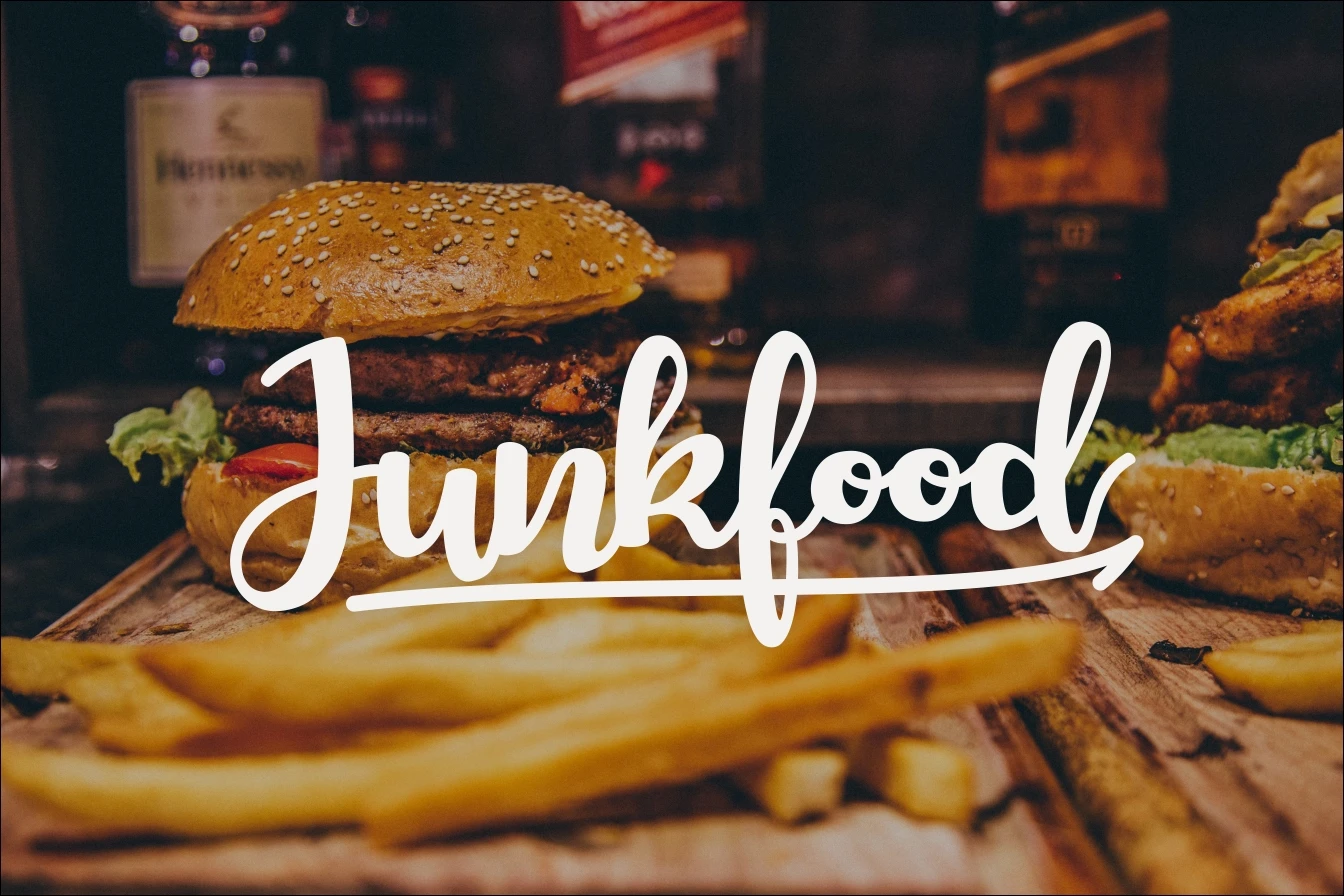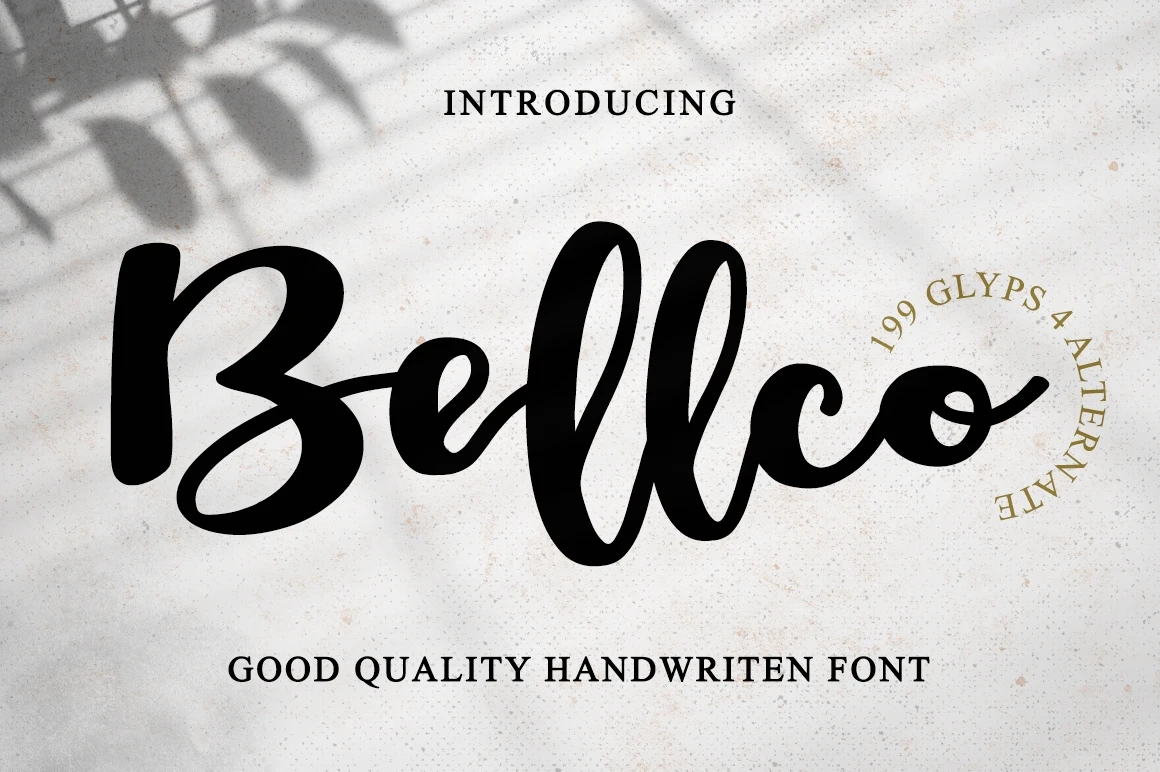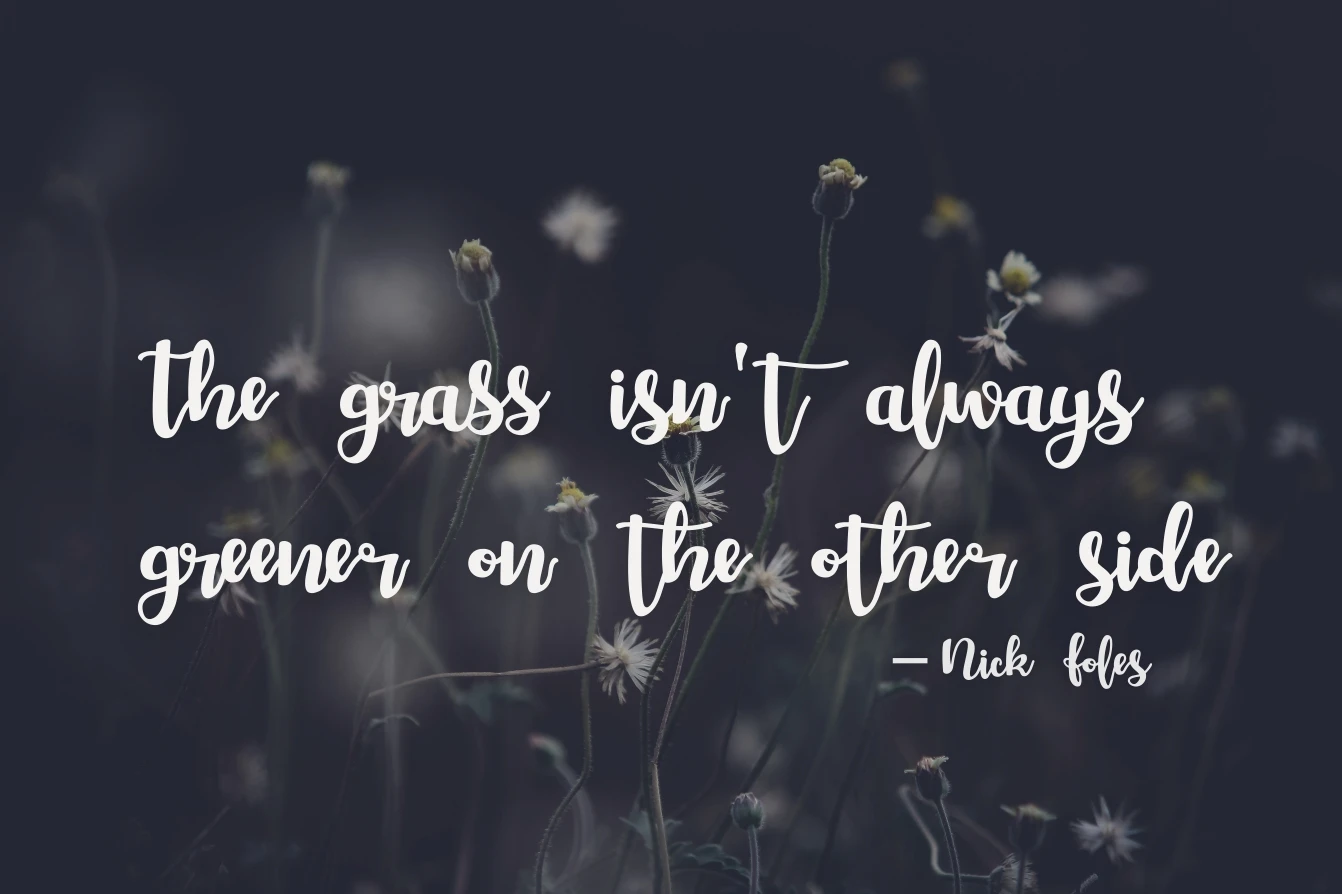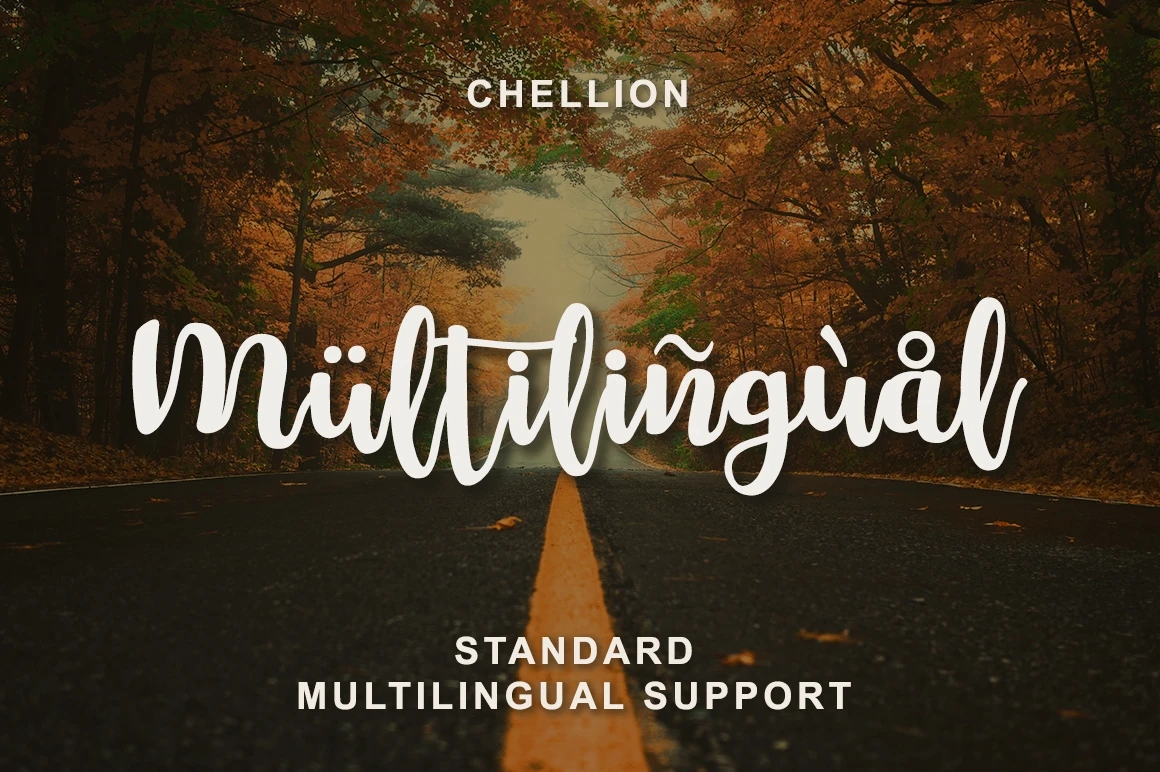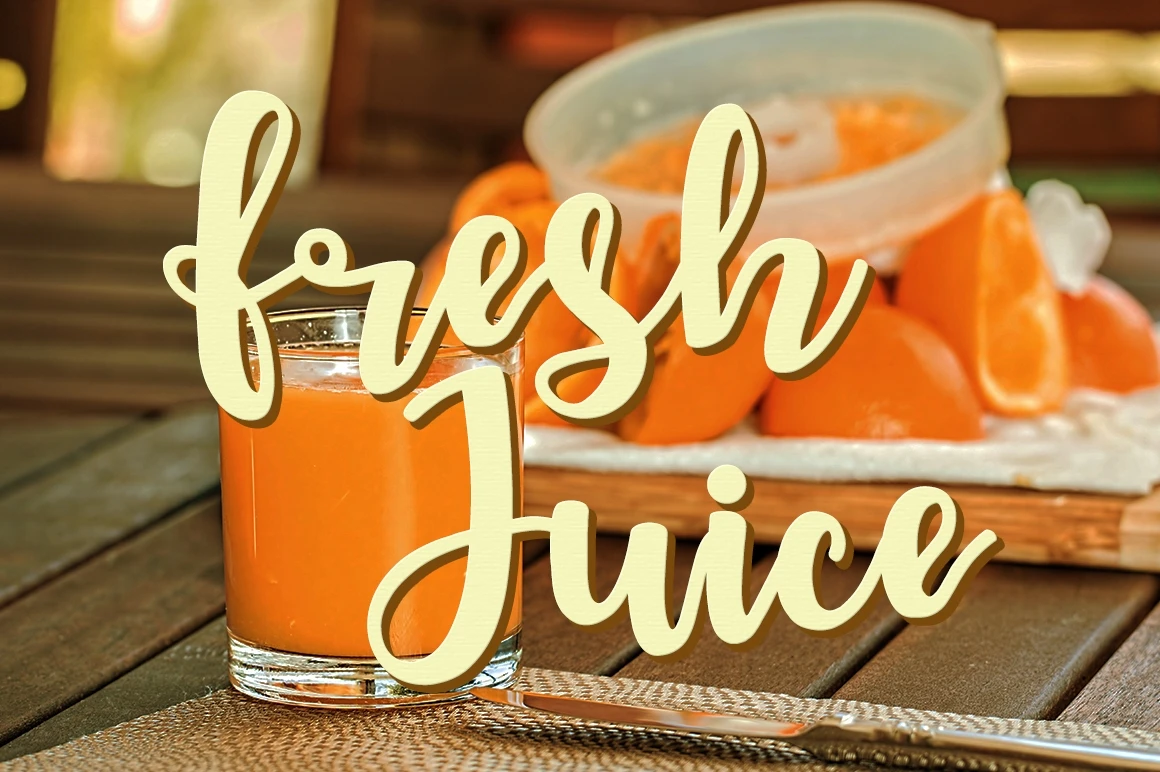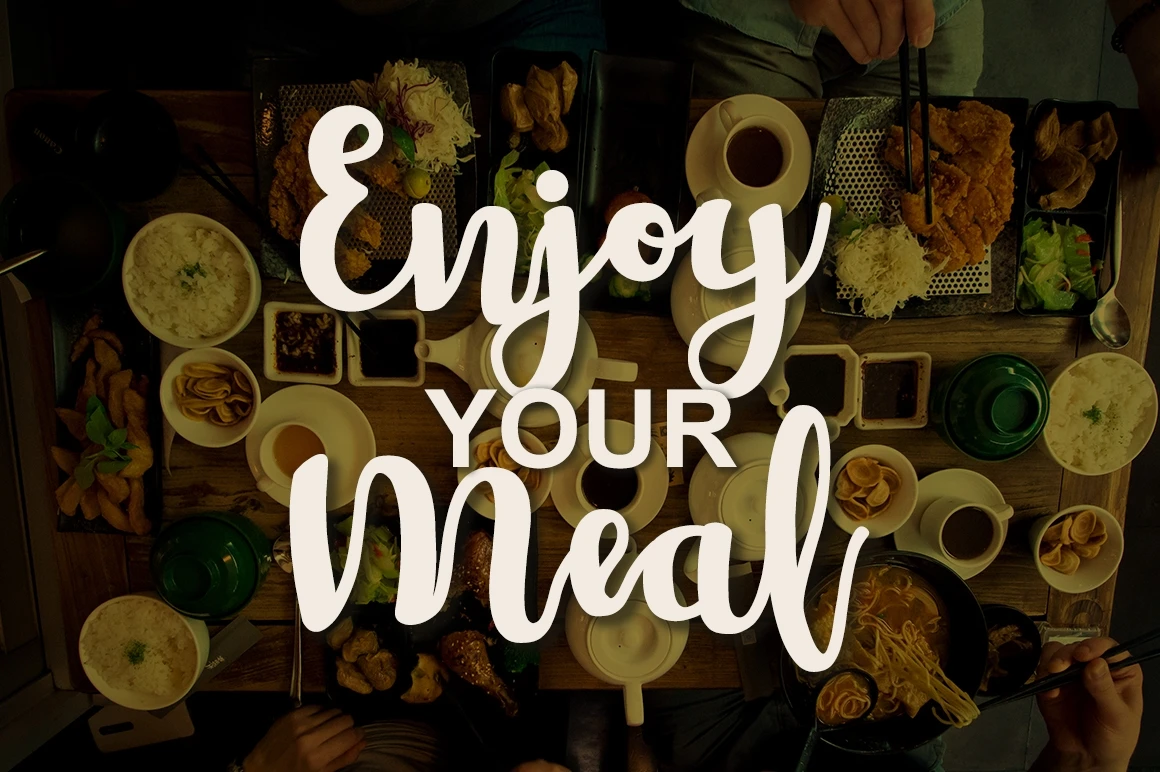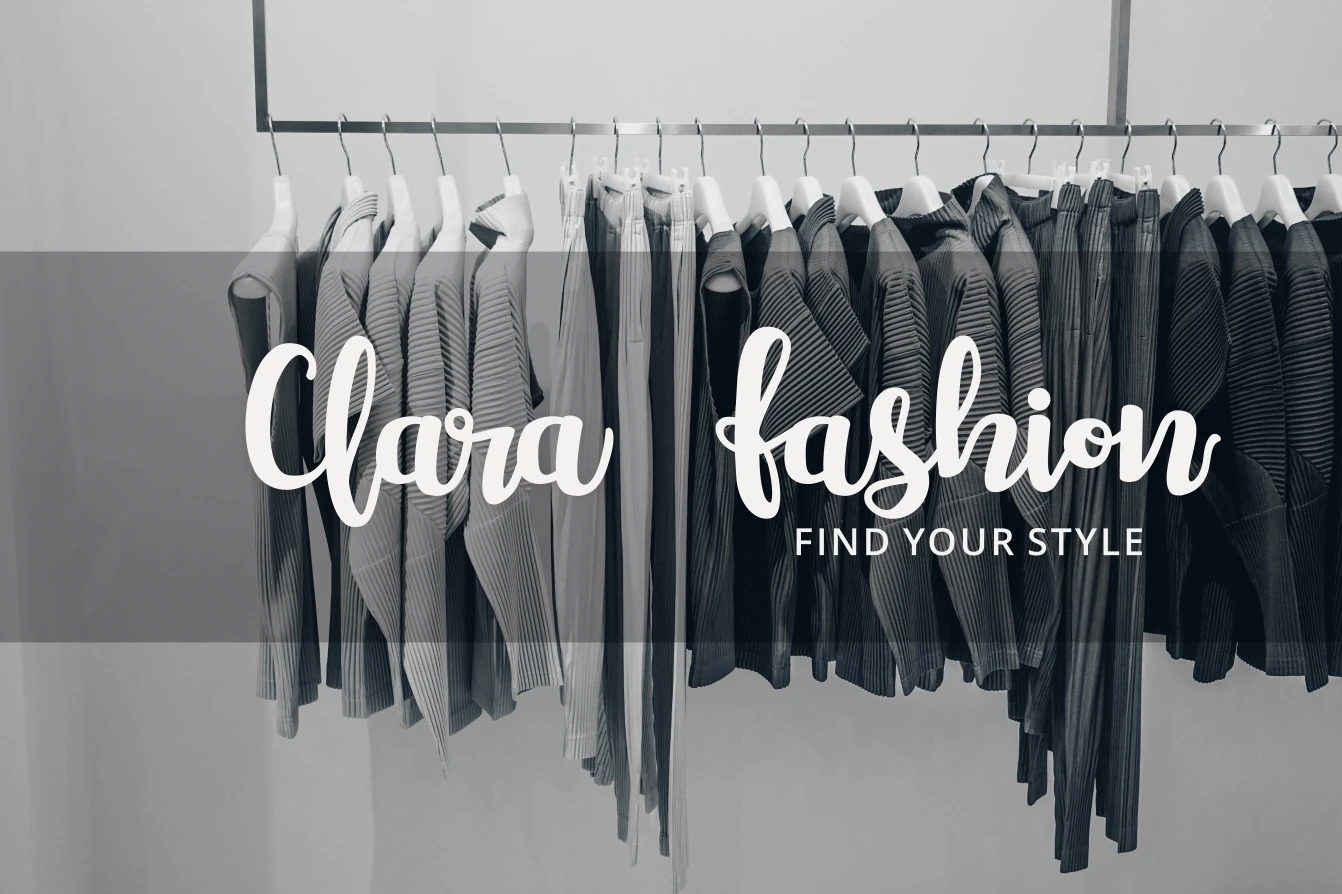
The Bellco is a fresh & modern script font. It has a fun and elegant feel and is suitable for logos, branding, quotes, posters, greeting cards, and more. This font includes over 198 glyphs, It has over 40 extended Latin characters for language support. Font is PUA encoded so all characters are accessible via Character Map, Font Book, or the font management program of your choice.Files Include:
Multilingual Support